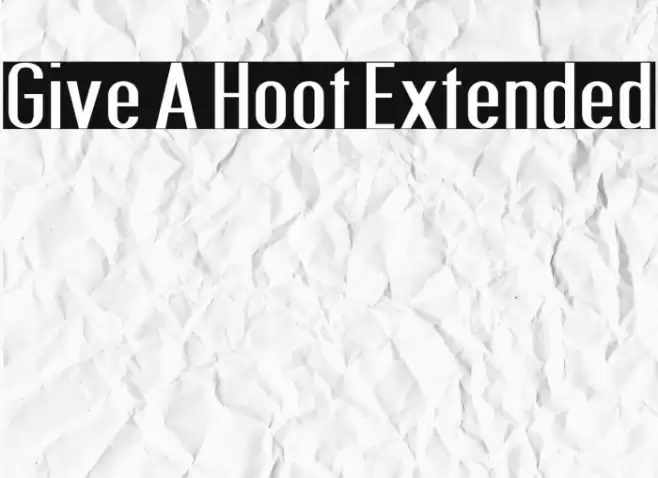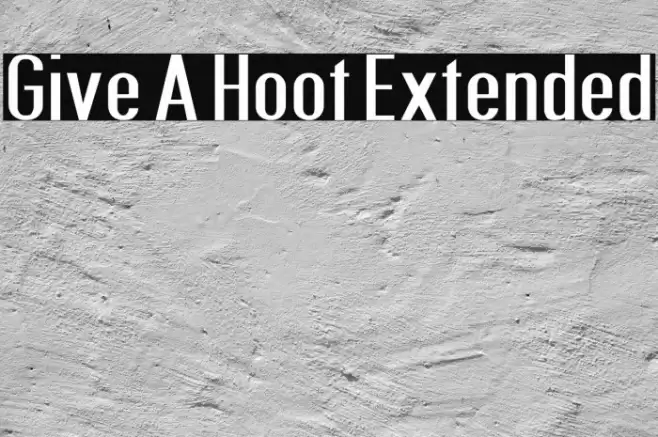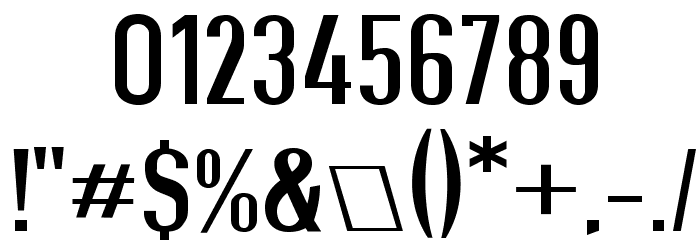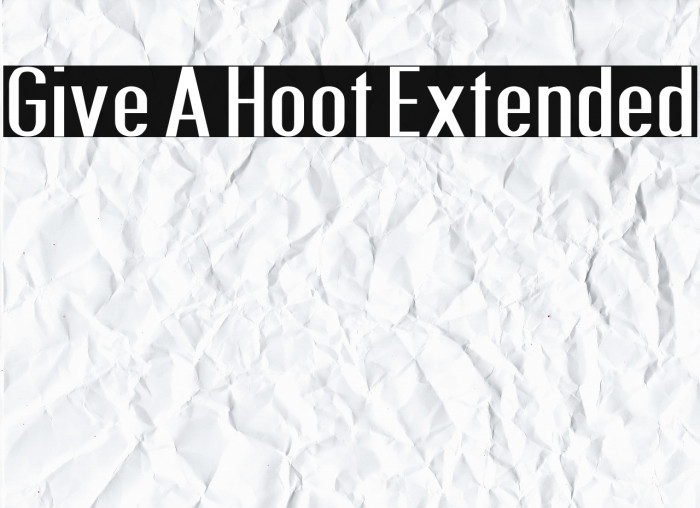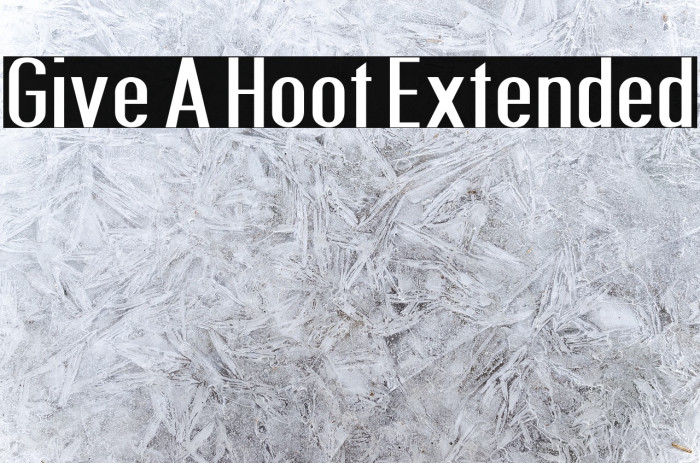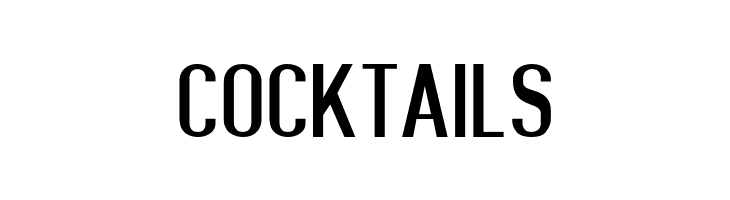
Give A Hoot Extended Font
Give A Hoot Extended Description
This font features a bold and modern sans-serif style with clean lines and a strong presence. The uppercase letters are tall and slightly condensed, giving a sense of authority and clarity. The lowercase letters maintain a consistent height and width, ensuring readability. Numbers are straightforward and align well with the overall design, while special characters are distinct and well-integrated. The font's uniform stroke width contributes to its modern and professional appearance, making it suitable for a variety of applications.
A bold, modern sans-serif font with clean lines and strong presence from Uncategorized fonts.
- Proposed Projects: Ideal for branding, headlines, posters, and digital media where a strong, modern look is desired.